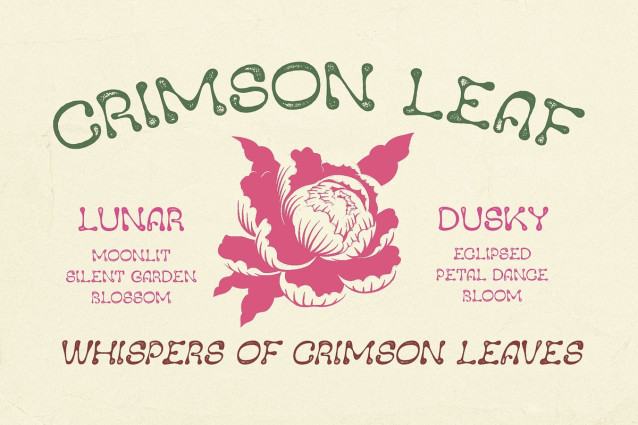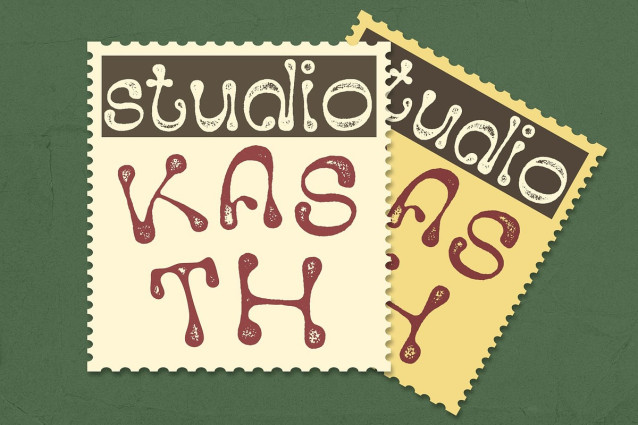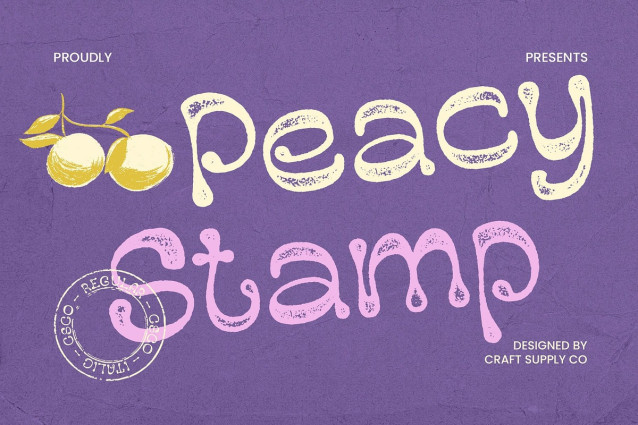
Peacy Stamp Font
Peacy Stamp Font is a modern display font that embraces a contemporary psychedelic style, featuring swirling and dynamic elements that create an energetic and visually captivating effect. The design is a bold fusion of eccentric shapes and free-flowing motion, ideal for designs that convey excitement, creativity, and energy.
Funky and Energetic Appeal This font’s funky and energetic design exudes a sense of boldness and individuality. The swirling letterforms and vibrant aesthetic capture attention, making it perfect for projects that aim to stand out and inspire a sense of adventure. Whether for music events, posters, or creative campaigns, Peacy Stamp delivers an unforgettable visual punch.
Rough Texture with Stamp Effect Enhanced with a stamp effect, Peacy Stamp introduces a rough texture that adds depth and dimension to the design. The imperfect, stamped appearance brings a tactile, organic feel to the letters, creating a sense of authenticity and spontaneity. This rough effect perfectly complements the playful, free-spirited design, giving the font its distinctive edge.
Ideal for Bold, Creative Designs Peacy Stamp shines in projects that demand a bold, creative, and spirited look. Its combination of vibrant, psychedelic shapes and the textured stamp effect make it the perfect choice for music branding, event posters, and campaigns focused on bold expression.